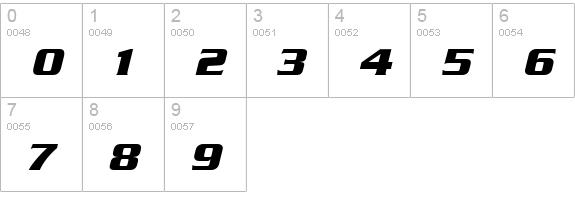
Boost SSi Bold Italic is a strong, high-contrast, italic variant in the Boost typeface family \xE2\x80\x94 well suited to headlines, attention-grabbing titles, and strong calls-to-action.
Boost SSi Bold Italic font is a dynamic and eye-catching typeface that exudes modernity and energy. Its bold strokes and italicized design make it perfect for conveying a sense of strength and sophistication in any design project. The striking letterforms of Boost SSi Bold Italic demand attention and add a touch of flair to any text. What's even better is that Boost SSi Bold Italic font is available for free download at FontsMarket.com. This means you can easily access this stunning typeface and incorporate it into your designs without any cost. Whether you're working on a branding project, a poster design, or any other creative endeavor, Boost SSi Bold Italic font is sure to elevate your work and leave a lasting impression on your audience. Download it today and bring a bold and stylish touch to your projects!